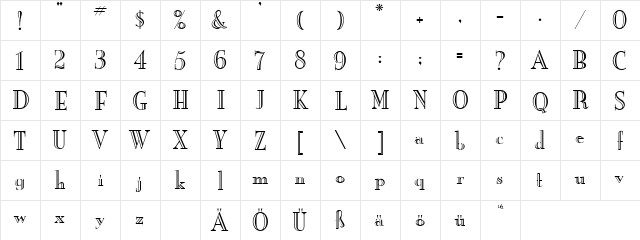
YankeeEngraved Normal
Design Context for YankeeEngraved Typeface
YankeeEngraved brings ornamental detail and strong personality to headlines and identities, where visual impact matters more than quiet functionality.
Font Pairing: Pair with a clean neutral sans-serif for body copy to let YankeeEngraved's character lead without overwhelming the composition.
Pro Tip: Treat YankeeEngraved as the centrepiece of your typographic hierarchy. One strong heading set in a decorative face can carry an entire layout.